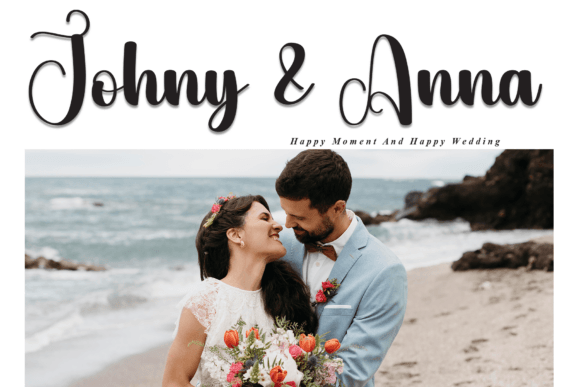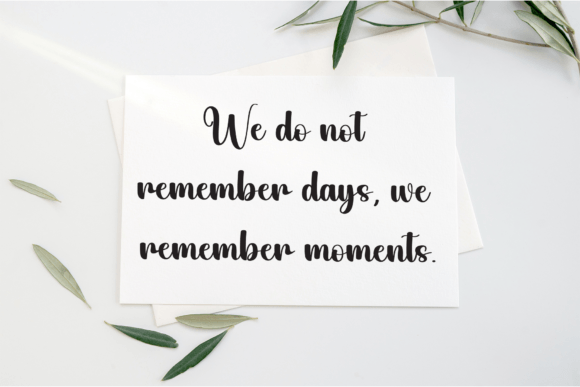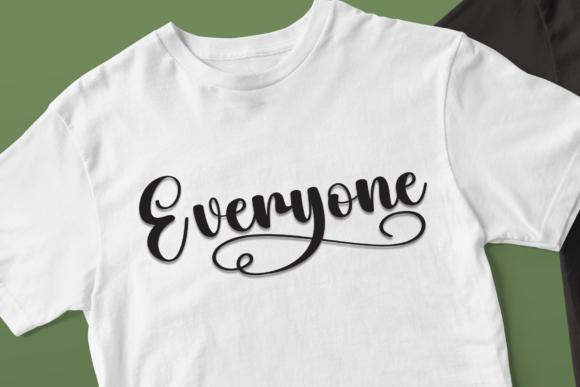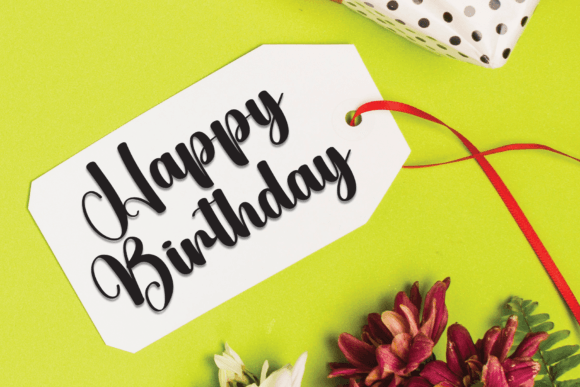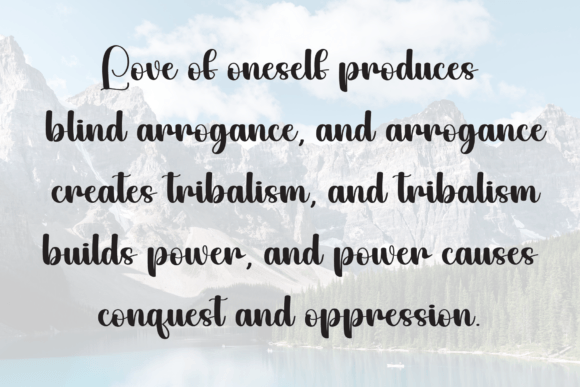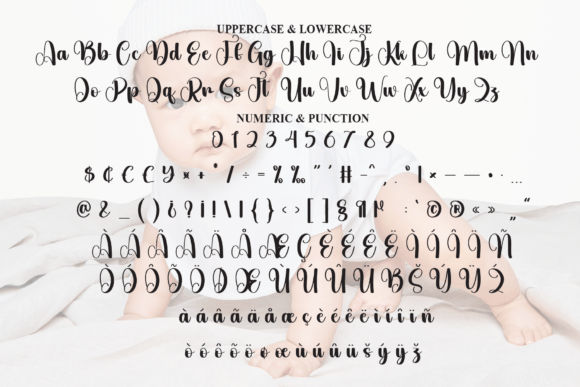
Unlocking Whimsy with Babykids Font
Have you ever stared at a blank canvas, trying to bring your creative vision to life? The blank page stares back, taunting you to make the first move. This is where the magic begins – the moment when a font can transform your idea into a captivating piece of art. And that’s exactly what happens when you choose the perfect font, like Babykids Font.
Babykids Font is a charming handwritten display font that wraps your words in sweetness and warmth. Its captivating quirkiness brings an extra touch of delightful fun to any project, imbuing it with a friendly vibe. Whether you’re designing wedding invitations, cards, or any other creative project, Babykids Font can add a whimsical touch that elevates your design to new heights. For designers, it’s a valuable asset that can add a playful yet elegant touch to your creations.
Babykids Font Key Features
- Unique Characteristics: Custom-designed for a playful, child-friendly aesthetic with rounded edges and smooth curves
- Style Variations: 5 different font styles, including regular, bold, italic, bold italic, and a special ‘kids’ style for added fun
Babykids Font Review
Overall, the Babykids Font is a cute and playful font that can add a touch of whimsy to your design projects. Here are some things that work well:
- ✨ The font has a wide range of characters, including uppercase and lowercase letters, numbers, and special characters.
- ✨ It’s available in various styles, such as bold, italic, and regular, which gives designers more flexibility when using the font.
- ✨ The font’s design is consistent throughout, making it easy to use and recognize.
- ⚠️ The font may not be suitable for formal or professional projects, as it can come across as too childish or immature.
- ⚠️ Some users may find the font’s design too simplistic or lacking in detail, which can make it harder to read in certain contexts.
- ⚠️ The font may not be as versatile as other fonts on the market, and may not work well in certain design scenarios.
Overall, I think the Babykids Font is a fun and creative option for designers who want to add a playful touch to their projects. While it may have some limitations, it’s still a great choice for those who are looking for a cute and whimsical font.
Tips for Getting the Most Out of Babykids Font
To get the most out of the Babykids font, use it for:
- Children’s products and packaging
- Playful branding and marketing materials
- Handwritten-style text for a personal touch
The Babykids font is commonly used for:
- Children’s book covers and illustrations
- Toy and game packaging
Alternatives to Babykids Font
Great Vibes is a beautiful, elegant script font that works well for titles and headings. It has a similar feel to Babykids Font, but with a more refined and sophisticated look. Use Great Vibes when you want to add a touch of luxury and sophistication to your design.
Alex Brush is a handwritten font with a more rustic and earthy feel. It’s perfect for designs that need a personal and emotive touch. Compared to Babykids Font, Alex Brush has a more organic and handwritten feel, making it suitable for designs that require a more casual and approachable tone.
Carolyna Pro is a modern and elegant script font that works well for titles and headings. It has a similar feel to Babykids Font, but with a more contemporary and sleek look. Use Carolyna Pro when you want to add a touch of sophistication and glamour to your design.